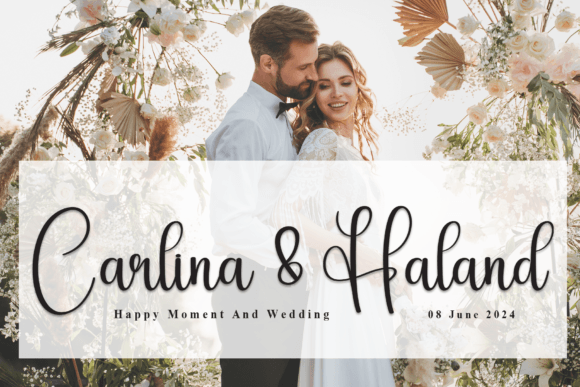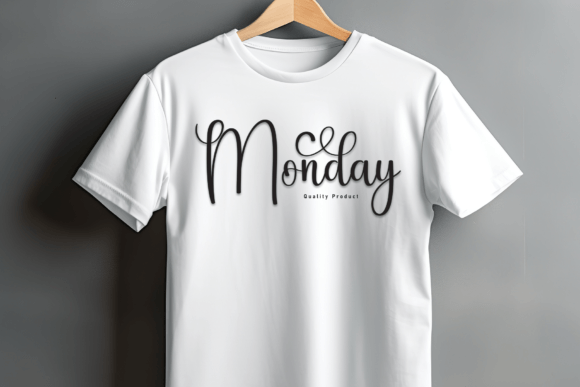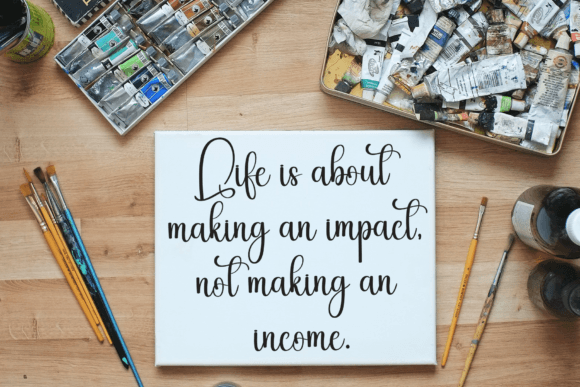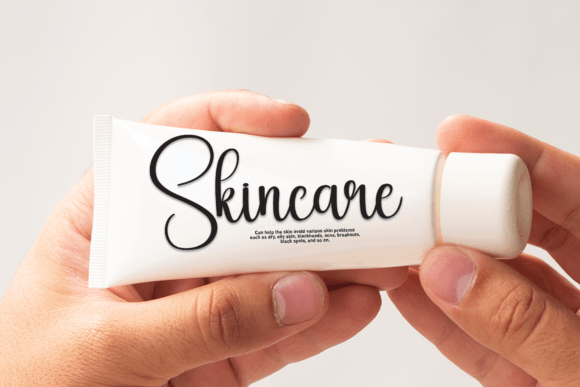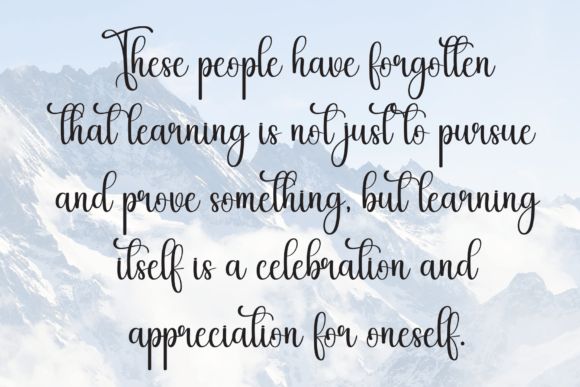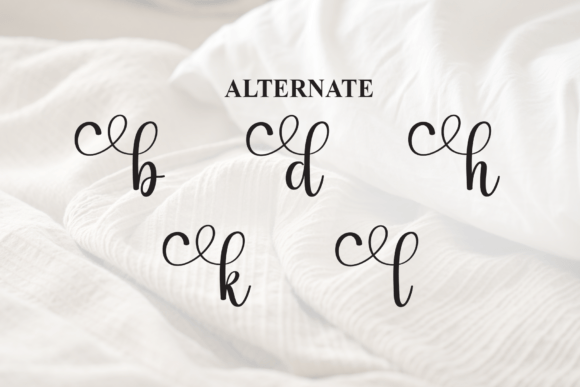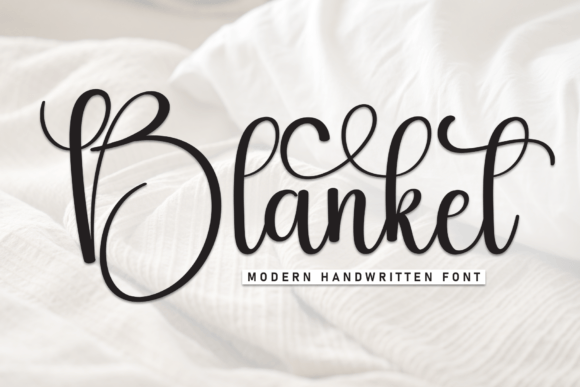
Introducing Blanket Font: The Sweet and Friendly Handwritten Font for Your Design Needs
Are you a designer or crafter looking for a font that can add a personal touch to your projects? Look no further than Blanket Font, a sweet and friendly handwritten font that’s perfect for a wide range of designs. With its natural and unique style, Blanket Font is incredibly versatile and can be used in various creative projects, from DIY crafts to professional design work.
The Charm of Blanket Font
Blanket Font is a handwritten font that exudes warmth and friendliness. Its natural, organic feel makes it perfect for designs that require a personal touch. The font’s unique style is reminiscent of handwritten notes and letters, making it ideal for projects that require a human touch. Whether you’re creating a logo, a label, or a social media graphic, Blanket Font is sure to add a touch of personality to your design.
What Makes Blanket Font So Versatile?
One of the things that sets Blanket Font apart from other fonts is its incredible versatility. Its natural and unique style makes it fitting for a large pool of designs, from rustic and vintage-inspired projects to modern and minimalist designs. The only limit to using Blanket Font is your imagination! Here are some ideas to get you started:
- DIY Crafts: Use Blanket Font to add a personal touch to your DIY craft projects, such as handmade cards, gift tags, and labels.
- Branding and Logo Design: Create a unique and memorable logo for your business or brand using Blanket Font.
- Social Media Graphics: Add a personal touch to your social media graphics, such as Instagram posts and Facebook covers, with Blanket Font.
- Packaging Design: Use Blanket Font to create custom labels and packaging for your products.
- Stationery and Invitations: Create beautiful and unique stationery and invitations using Blanket Font.
Tips for Using Blanket Font Effectively
Here are some tips for using Blanket Font effectively in your designs:
- Pair with Other Fonts: Experiment with pairing Blanket Font with other fonts to create a unique and visually appealing design.
- Use Different Colors: Try using different colors to add contrast and visual interest to your design.
- Experiment with Sizes: Experiment with different font sizes to create a hierarchical design that draws the viewer’s attention.
- Add Texture and Patterns: Add texture and patterns to your design to give it a more organic and handmade feel.
In conclusion, Blanket Font is a sweet and friendly handwritten font that’s perfect for designers and crafters looking to add a personal touch to their projects. Its natural and unique style makes it incredibly versatile and fitting for a wide range of designs. With its endless possibilities, Blanket Font is sure to become a favorite in your design toolkit. So why wait? Download Blanket Font today and let your creativity shine!
Whether you’re a seasoned designer or a DIY crafter, Blanket Font is sure to inspire your creativity and take your designs to the next level. So go ahead, get creative, and show the world what you can do with Blanket Font!